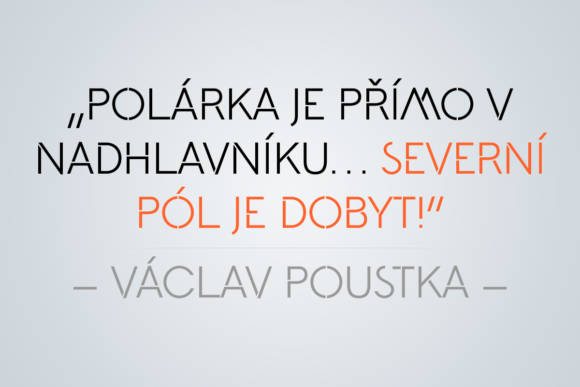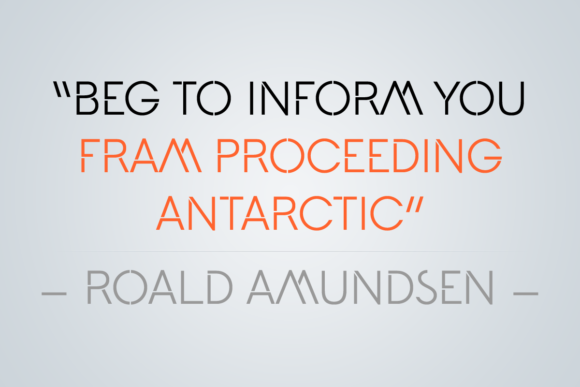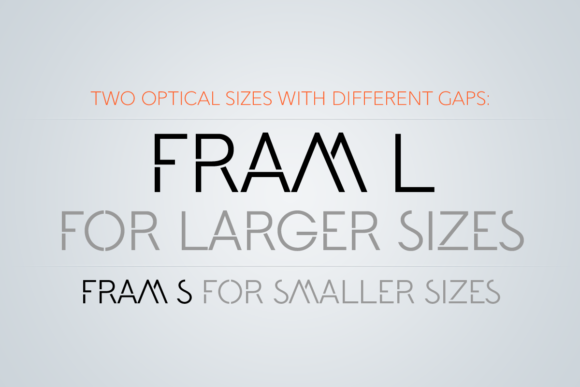
Introduction to Fram Font
Imagine you’re working on a creative project, pouring your heart and soul into a design, but something’s missing. The right font can make all the difference. That’s where the Fram Font comes in – a versatile and stylish stencil font family that’s sure to elevate your design resource.
As a designer, you know how crucial it is to have high-quality fonts at your disposal. With Fram Font, you’ll have access to two stylish variations, perfect for adding a touch of sophistication to your projects. And the best part? You can download it for free, giving you the creative freedom you need to bring your ideas to life.
Whether you’re working on a graphic design project or creating digital content, Fram Font is an invaluable resource that’s sure to become a staple in your design toolkit. With its transparent background and sleek design, it’s the perfect addition to any creative endeavor.
Key Features of Fram Font
- High-quality design resource ideal for creative projects, including digital art and graphic design.
- Comes with a transparent background, allowing for seamless integration into various design environments.
- Features a unique, modern design aesthetic, setting it apart from other fonts in its class.
- Designed to be highly legible, even at small font sizes, making it perfect for use in a variety of creative projects.
Honest Review: Fram Font
I recently had the chance to work with the Fram Font, and I must say it’s been a game-changer for my creative project. This design resource has truly impressed me with its high quality and versatility.
Here are some things that I think work well about the Fram Font:
- ✨ Wide range of styles: From elegant to modern, the Fram Font offers a variety of styles that can suit any design need.
- ✨ High-quality glyphs: The font’s glyphs are crisp and clear, making it perfect for any design project.
- ⚠️ Limited transparency options: While the font itself is great, I found that it doesn’t offer much in terms of transparent background options.
- ⚠️ Not ideal for small text: While it’s great for headlines and titles, I found that the font can be a bit too bold for small text.
Overall, I’m really impressed with the Fram Font. It’s a high-quality design resource that’s perfect for any creative project. While it has some limitations, I think it’s well worth the free download.
Fram Font
For getting the most out of Fram Font, try pairing it with other high-quality fonts for a unique design look. Common use cases include designing logos, brochures, and social media graphics. Since Fram Font is free to download, it’s an excellent choice for creative projects on a budget.